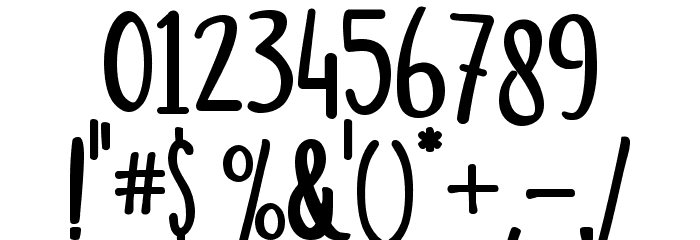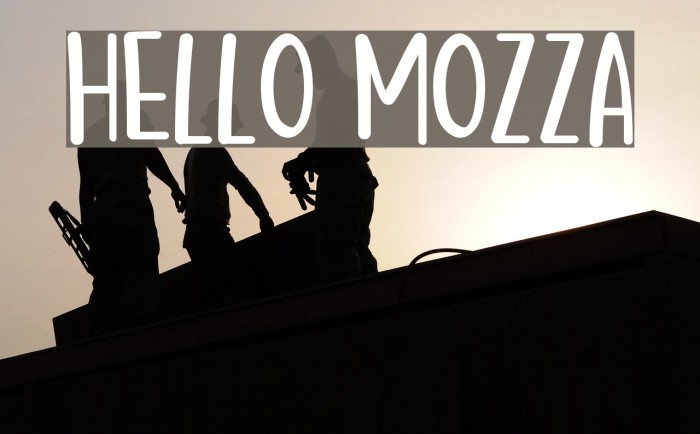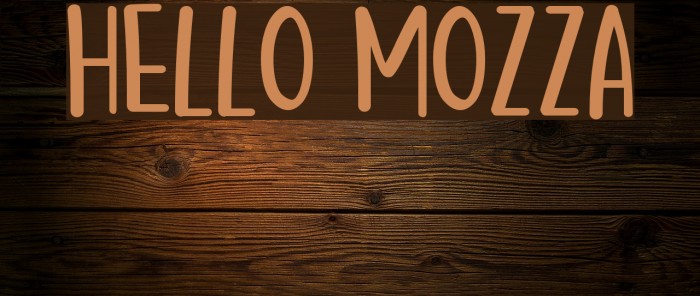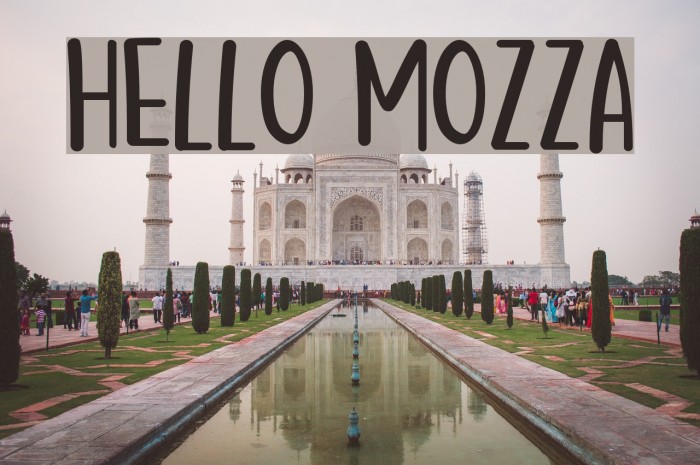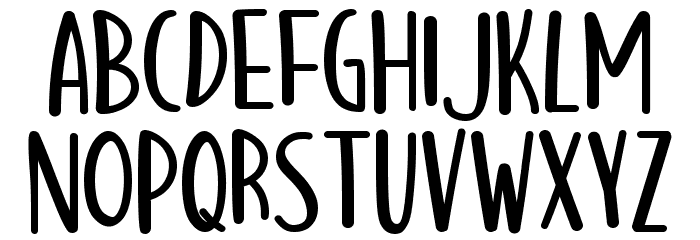
Hello Mozza Font
Hello Mozza Description
This font features a playful and casual handwritten style, characterized by its smooth, rounded edges and slightly irregular letterforms. The uppercase and lowercase letters maintain a consistent height, creating a harmonious and friendly appearance. The numbers and special characters are designed with the same playful aesthetic, making them easily readable and visually appealing. The overall design exudes a sense of warmth and approachability, making it suitable for a variety of creative projects.
A playful, casual handwritten font with smooth, rounded edges from Uncategorized fonts.
- Proposed Projects: Ideal for greeting cards, children's books, playful branding, and social media graphics.
- Overall Style: Casual
- Use Case: Headlines, Logos, Informal Text